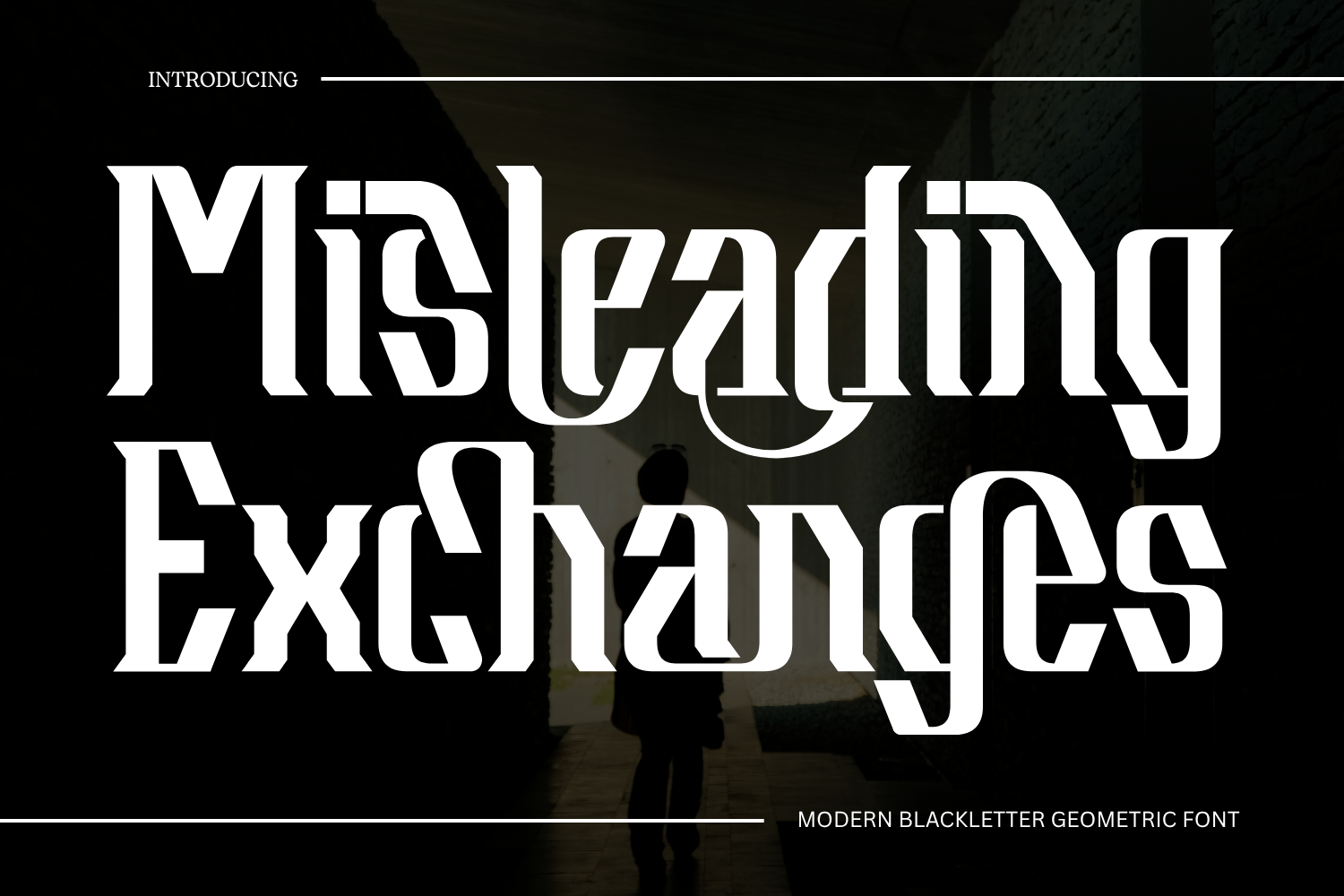
Misleading Exchanges Font
Misleading Exchanges Font – Modern Blackletter & Cyber-Gothic Stencil Display Font, is an atmospheric, high-impact display font engineered at the nexus of medieval blackletter typography, futuristic stencil cuts, and sharp cyber-gothic architecture. Defined by its tall condensed stems, diamond-sharp spurs, and sweeping fluid arches, this typeface strikes a thrilling balance between dark historical elegance and cutting-edge dystopian design.
Crafted with precision 45-degree stencil slashes and razor-sharp inner counters, Misleading Exchanges transforms standard headlines into imposing typographic sigils. It is the definitive display choice for dark fantasy game interfaces, heavy metal and phonk album artwork, streetwear techwear fashion, horror and sci-fi movie titles, and high-octane branding graphics.
🔤Features:
Uppercase & Lowercase Letters
Around 100 Special Ligatures & Alternates
Accented Characters for multilingual support
🔤About 100 ligatures combined with Stylistic Alternates Font:
ac ad al an ar as at au av be ca ce ch co ct de di ea ec ed ee el em en ep er es et fe fo fr ge ha he hi ho ie ic il in io ir is it ju ke la le li ll lo ly ma me mi nc nd ne ng no nt ns oc of om on oo op or ot ou ow pa pr ra rd re ri ro rs rt se sh si so ss st ta te th ti to tr tt um un ur ve wi wo